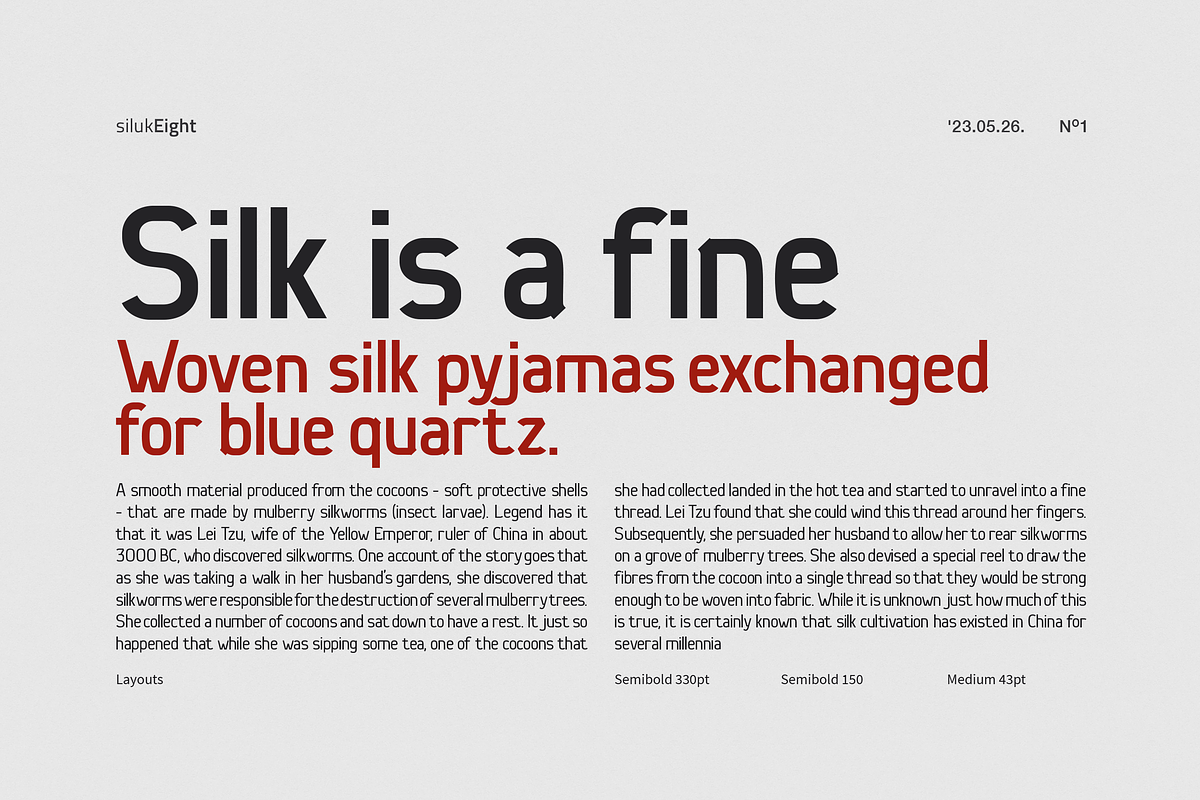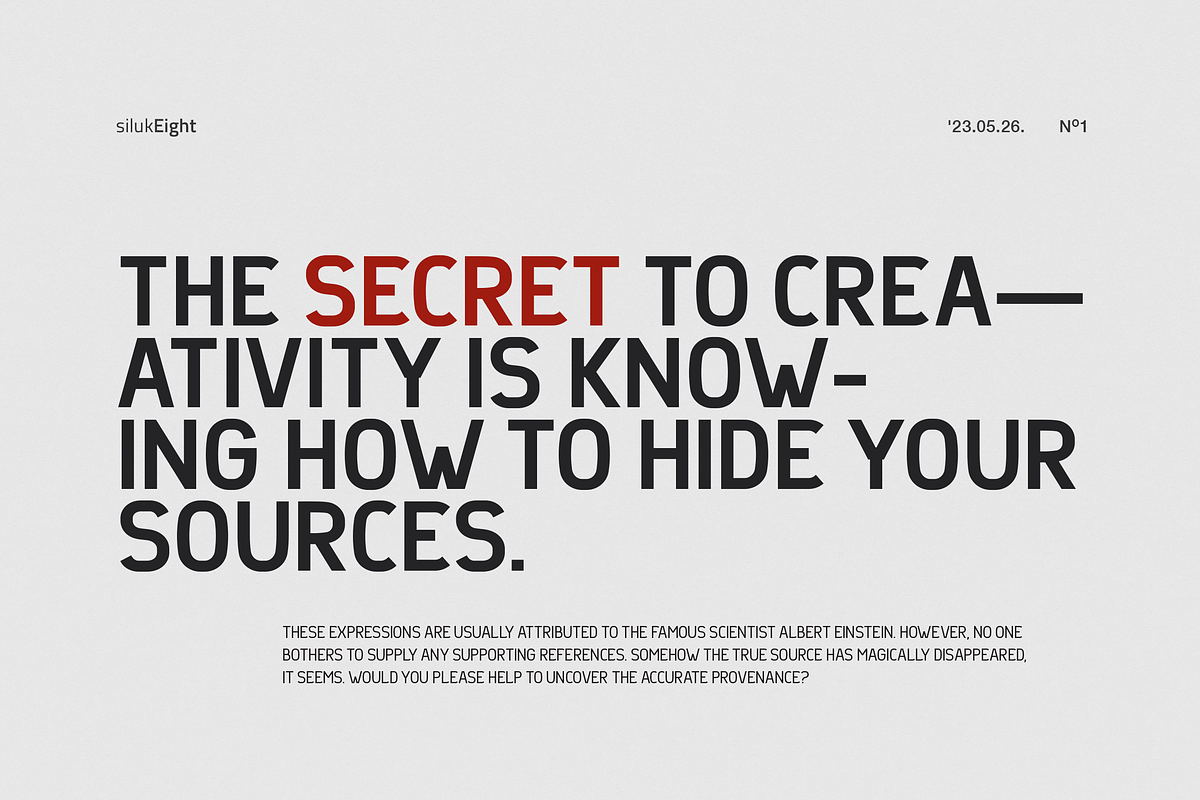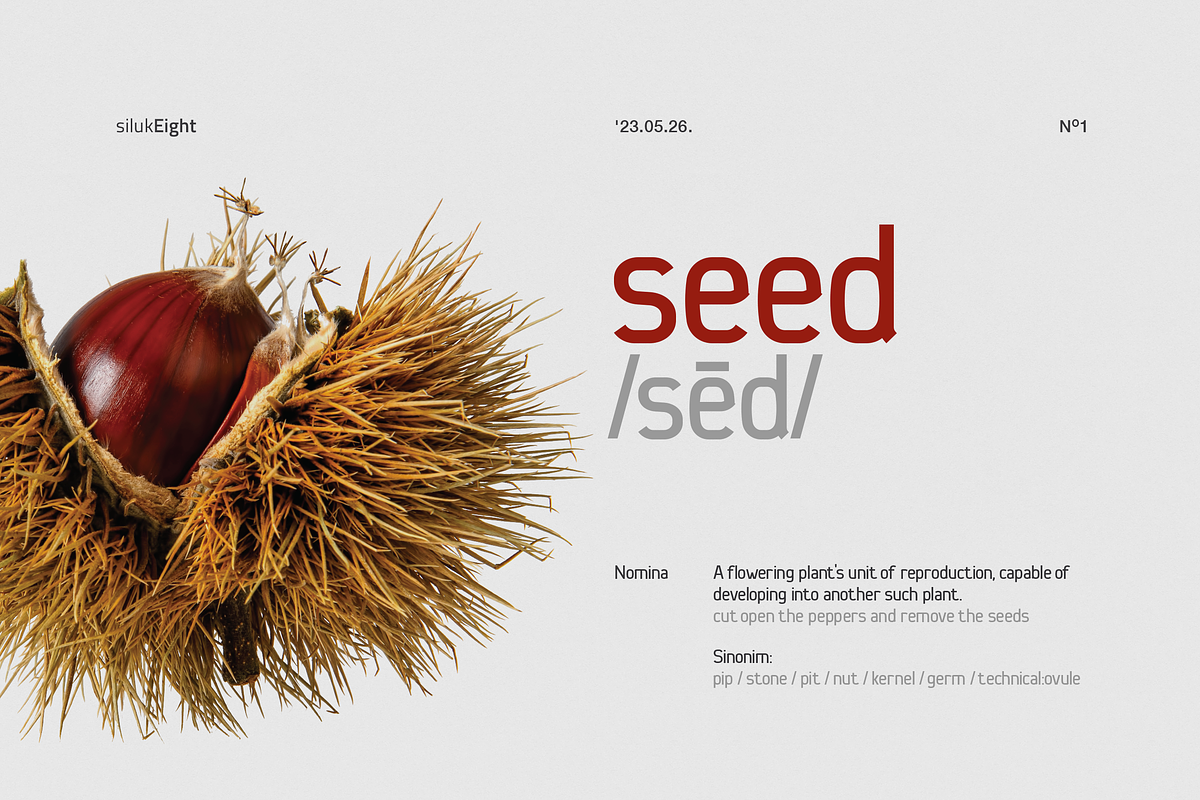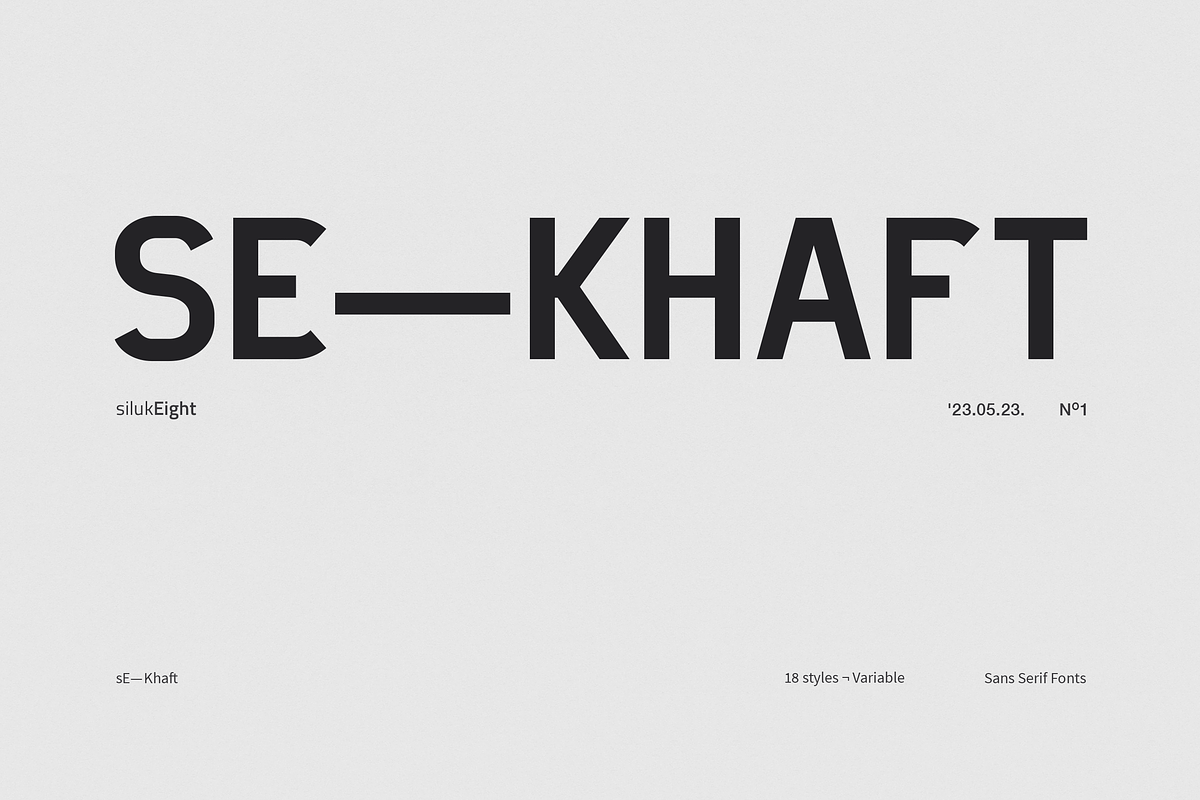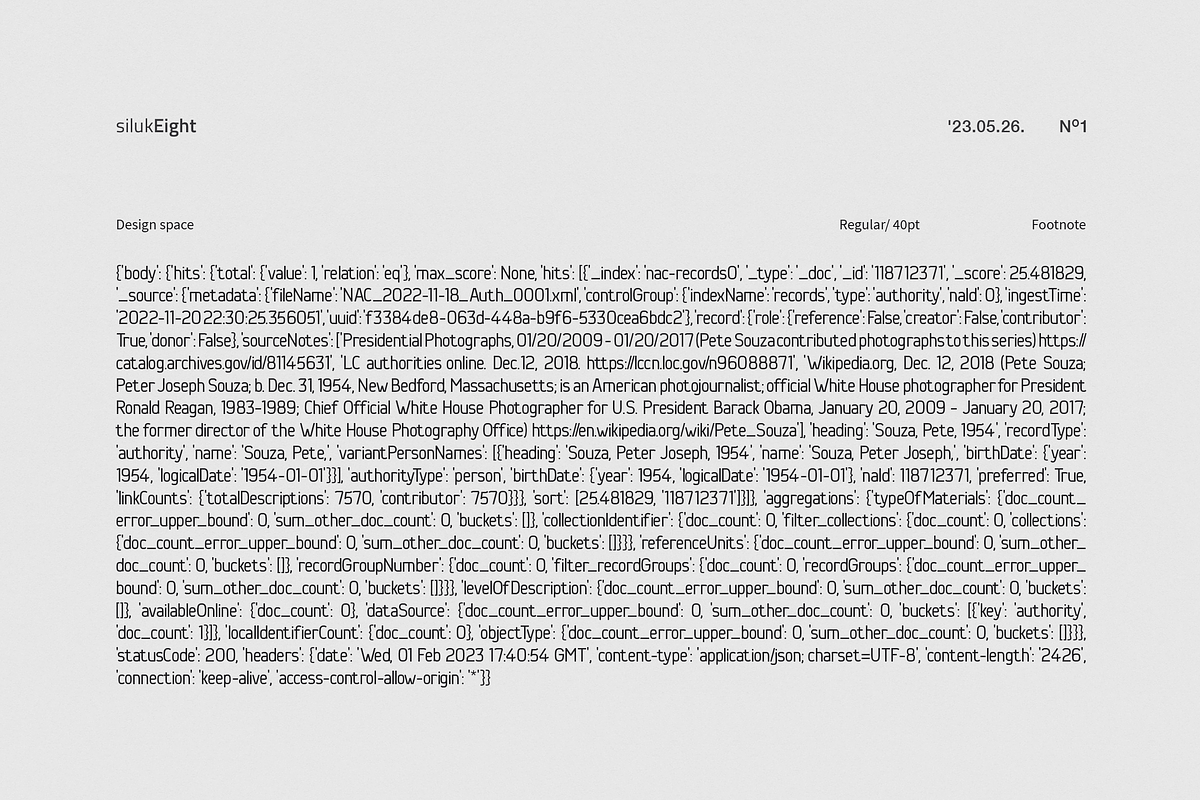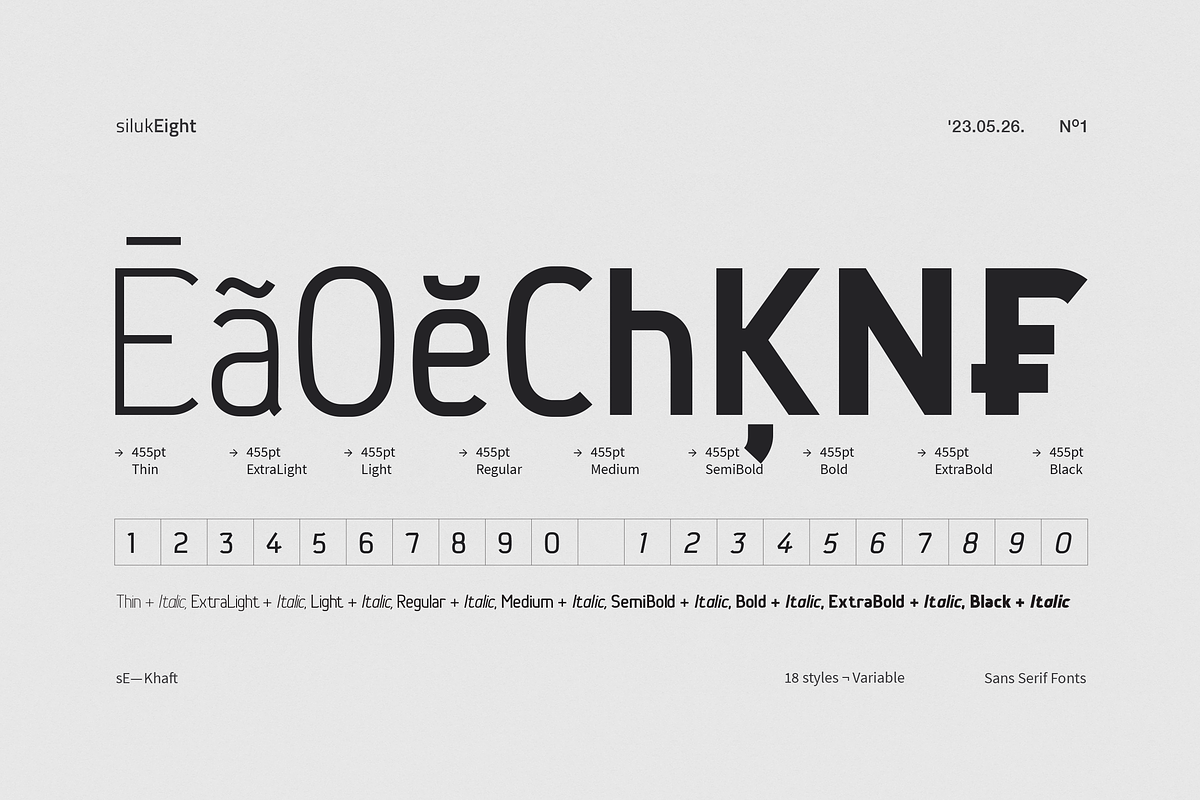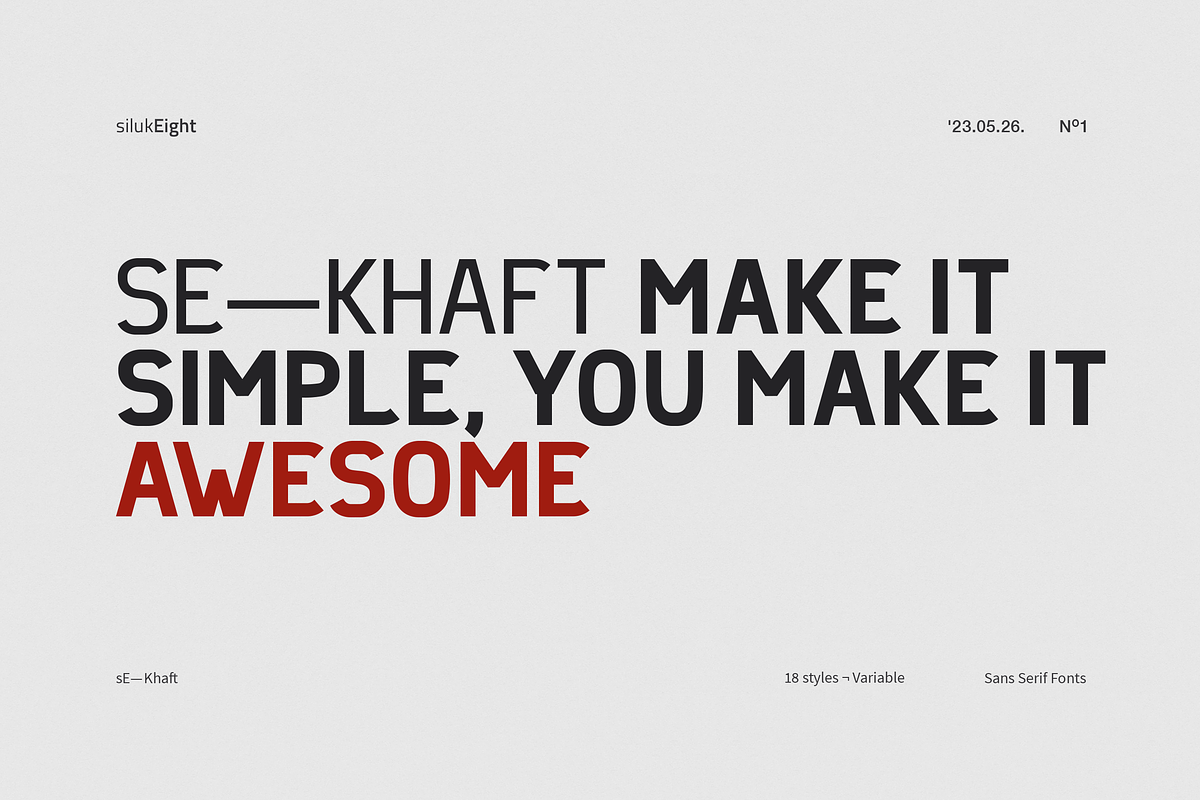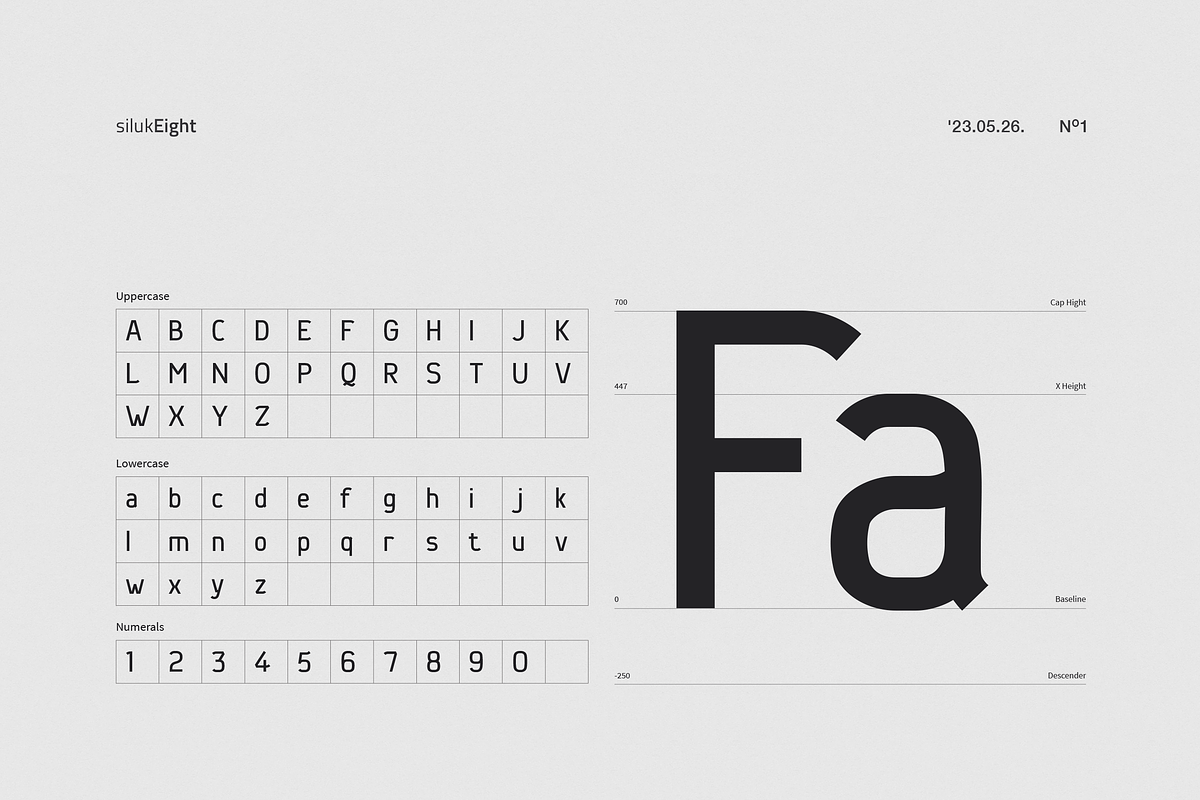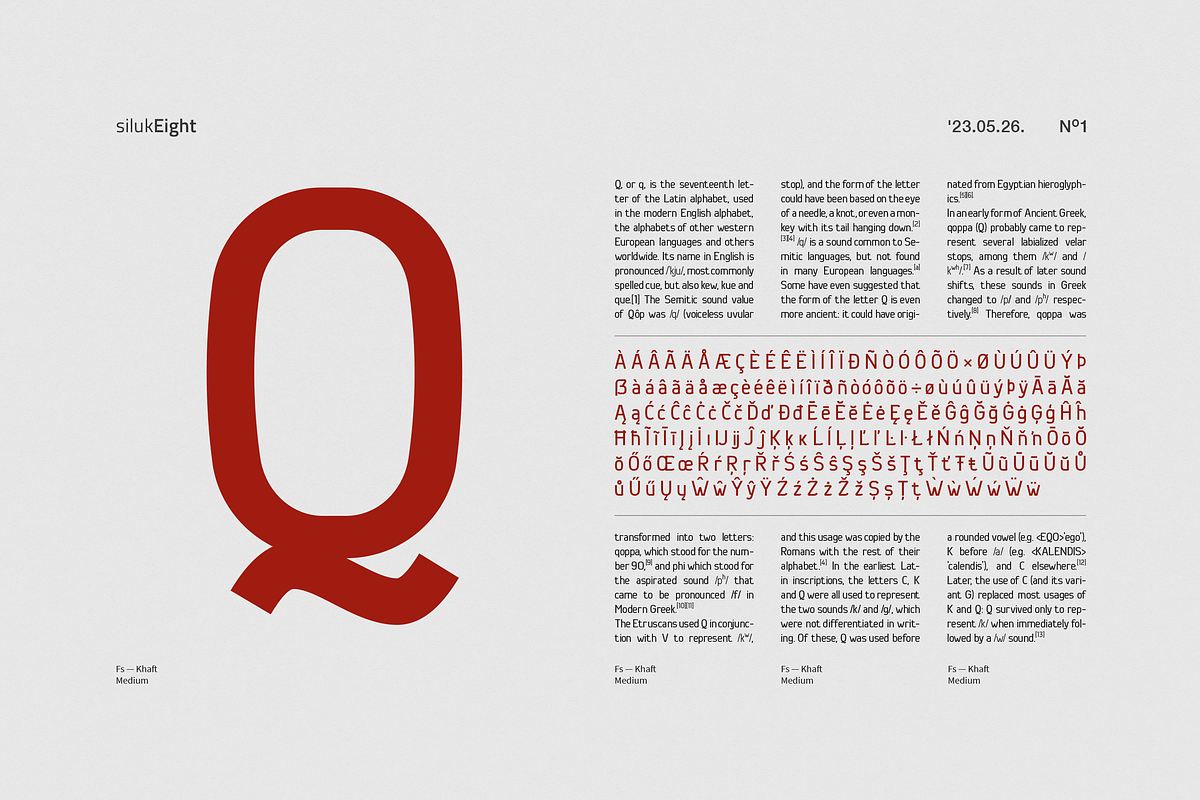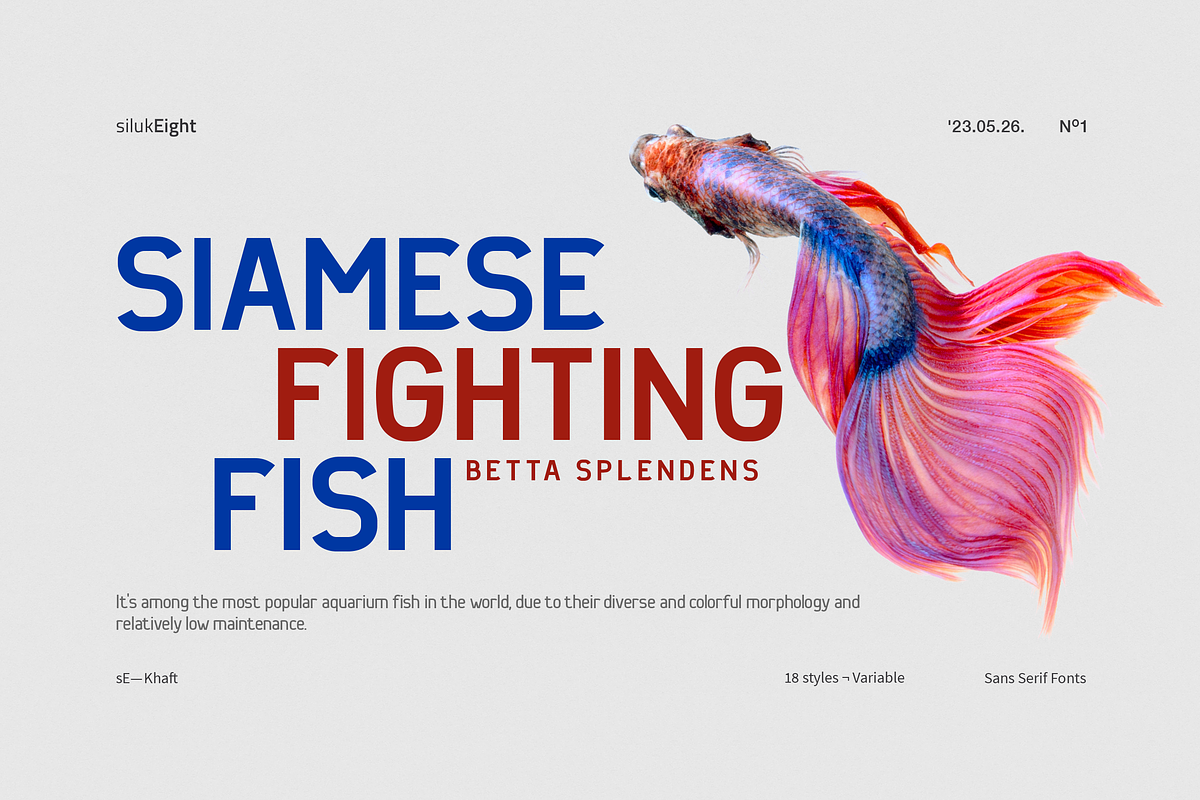
sE—Khafr
"sE-Khaft", an exquisite and versatile sans-serif font that exudes a perfect blend of modernity and sophistication. With its clean lines and graceful curves, sE-Khaft offers a touch of elegance to any design project. Whether you're working on luxury branding, editorial layouts, or upscale packaging, this font shines with its timeless appeal. Its extensive set of alternate characters and ligatures provide endless design possibilities, allowing you to create unique and captivating typographic compositions that leave a lasting impression.
PRODUCT FEATURES :
- 18 styles variable
- Regular & Italics
- Alternates & ligatures
- Suitable for Headlines, Logotypes, Signs, Posters, Letterhead, website and many more.
- Support International Language
FONTS WIGHT :
- Thin + Italic,
- ExtraLight + Italic,
- Light + Italic,
- Regular + Italic,
- Medium + Italic,
- SemiBold + Italic,
- Bold + Italic,
- ExtraBold + Italic,
- Black + Italic